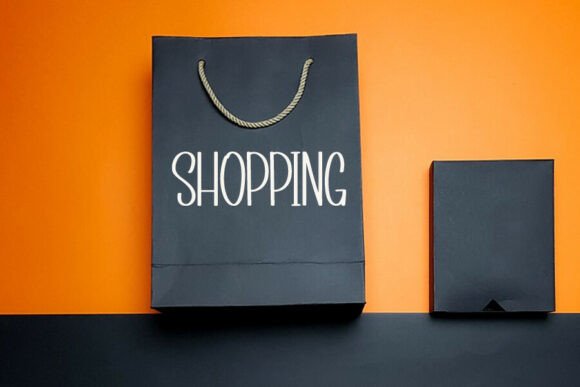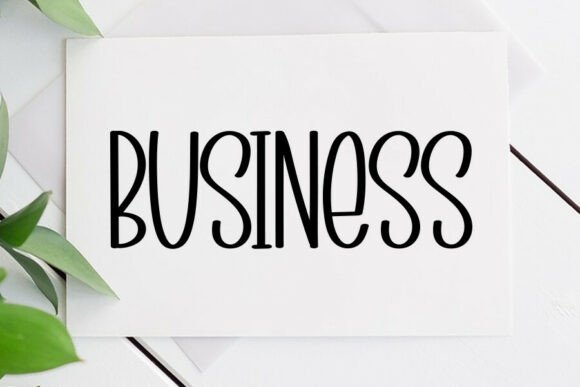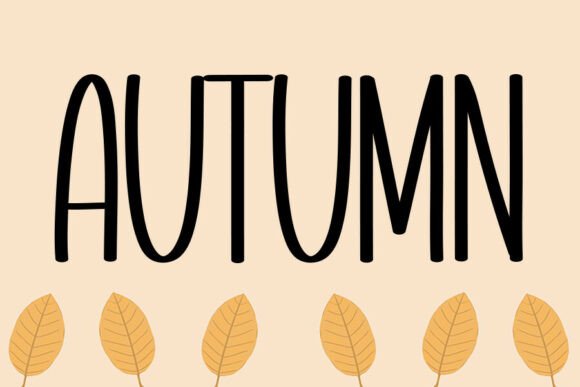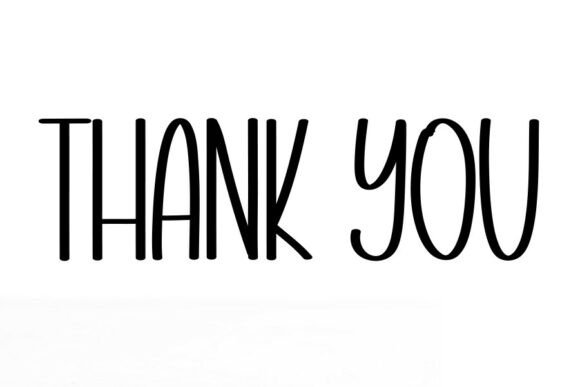
The Perfect Gift: Discovering the Charm of Father Font
I’ll never forget the design project that led me to discover Father Font. I was working on a Father’s Day campaign for a client, and I was struggling to find the perfect font to capture the warm, heartfelt feel they wanted. The brief was simple: create a design that felt personal, emotional, and authentic. But, as any designer knows, finding the right font can be a daunting task. That’s when I stumbled upon Father Font, and it instantly clicked.
A Personal and Heartfelt Font
Father Font is a tall, playful handwritten font with a casual, heartfelt feel. Its slim, elongated characters bring a sense of warmth and personality, making it perfect for Father’s Day designs, greeting cards, t-shirts, posters, and more. This font combines a clean handwritten style with a touch of charm, making it ideal for personal and emotional projects.
- ✨ The font’s unique blend of playfulness and elegance makes it stand out from other handwritten fonts.
- ✅ The slim, elongated characters create a sense of warmth and personality.
- 💕 The font’s casual, heartfelt feel makes it perfect for personal and emotional projects.
While Father Font is an amazing font, it’s not perfect. Here are a few quirks to keep in mind:
- ⚠️ Some characters may appear a bit too condensed, which can affect readability at smaller font sizes.
- 🤔 The font’s playful nature may not be suitable for very formal or corporate designs.
The Designer Inspiration Behind Father Font
Father Font was designed with the intention of creating a font that feels personal, emotional, and authentic. The designer wanted to create a font that captures the warmth and personality of a handwritten note, making it perfect for designs that require a human touch.
Q: What type of projects is Father Font best suited for?
A: Father Font is perfect for personal and emotional projects, such as Father’s Day designs, greeting cards, t-shirts, posters, and more.
Q: Is Father Font suitable for body text?
A: While Father Font is a beautiful font, it’s best suited for headlines and titles. For body text, you may want to choose a font with better readability.